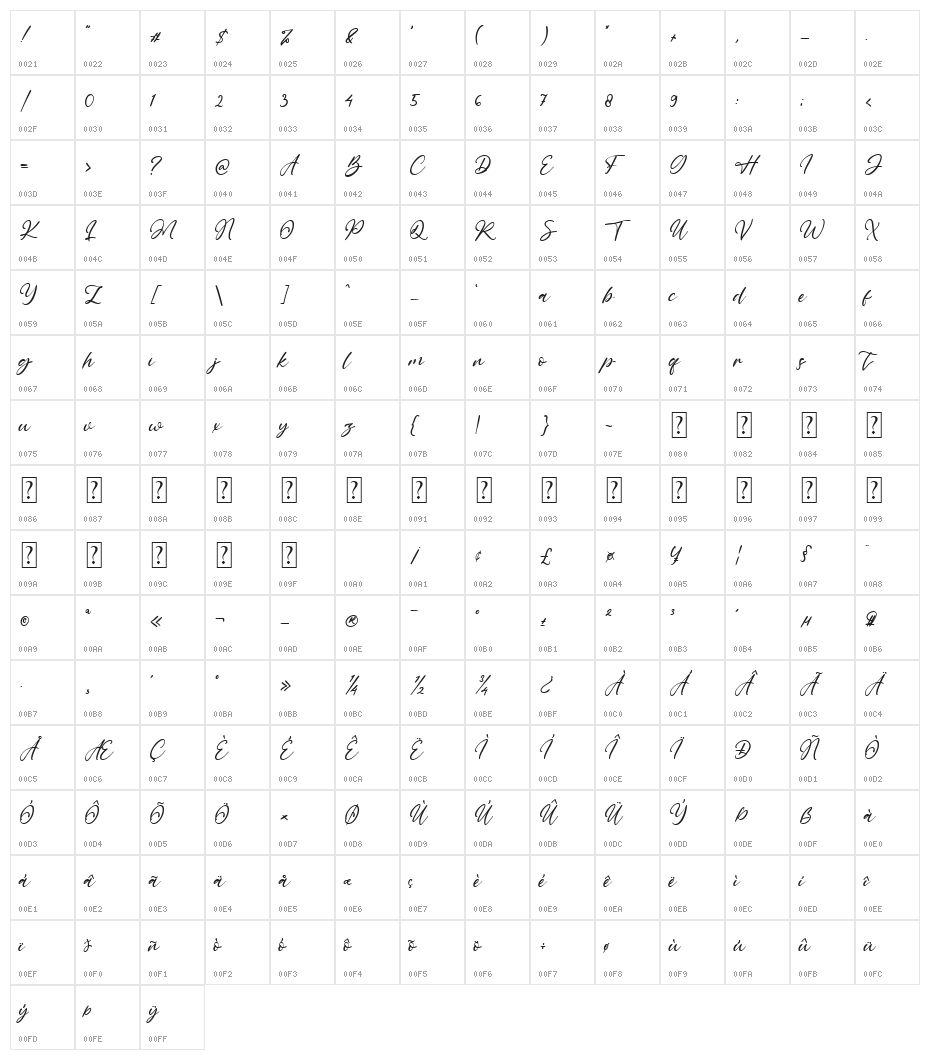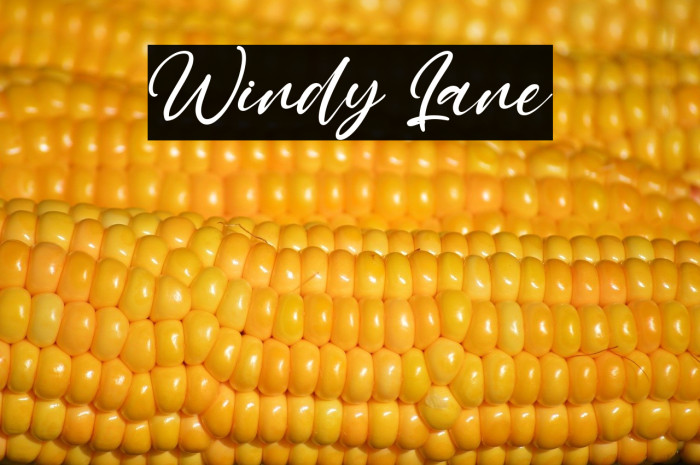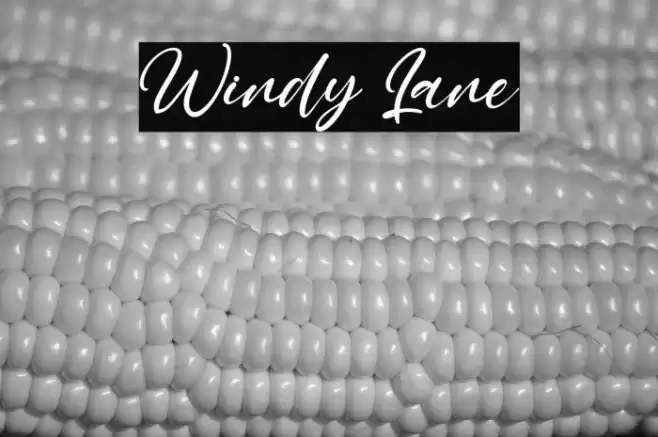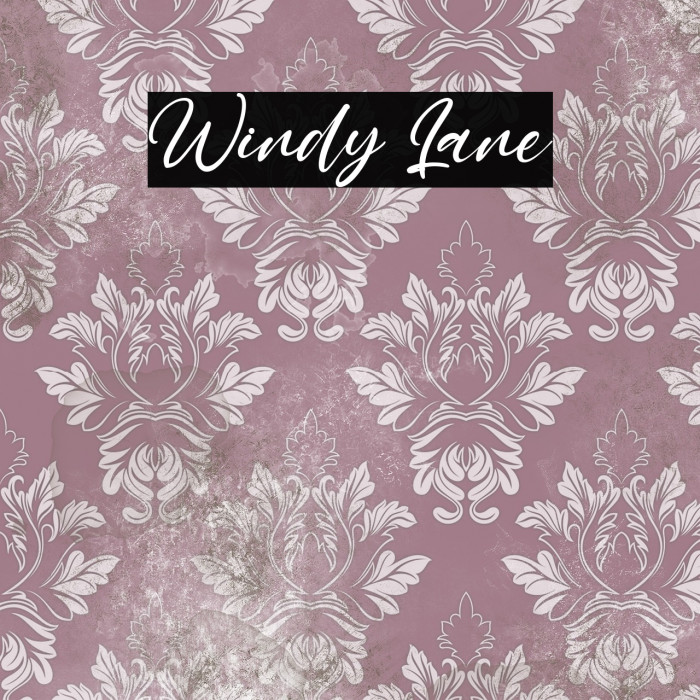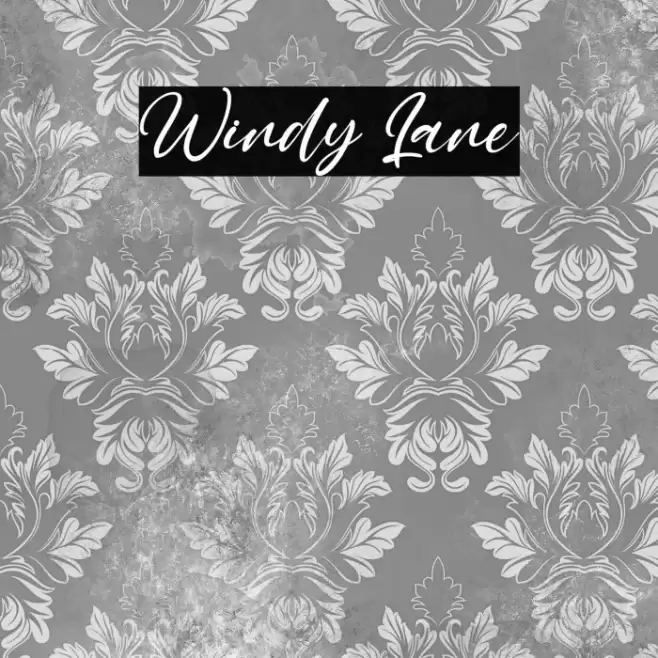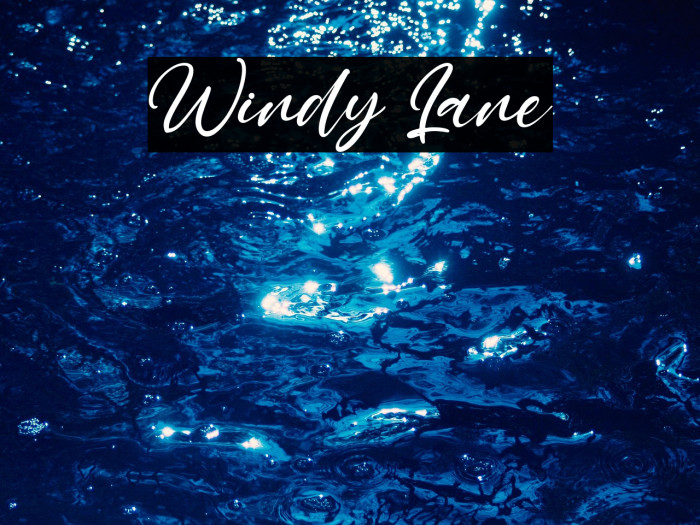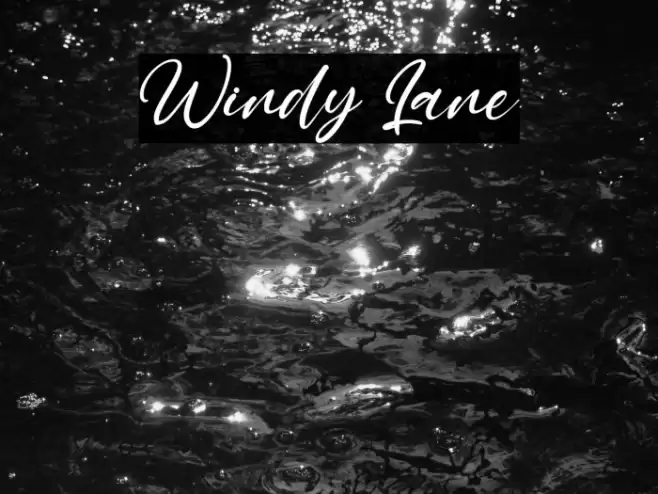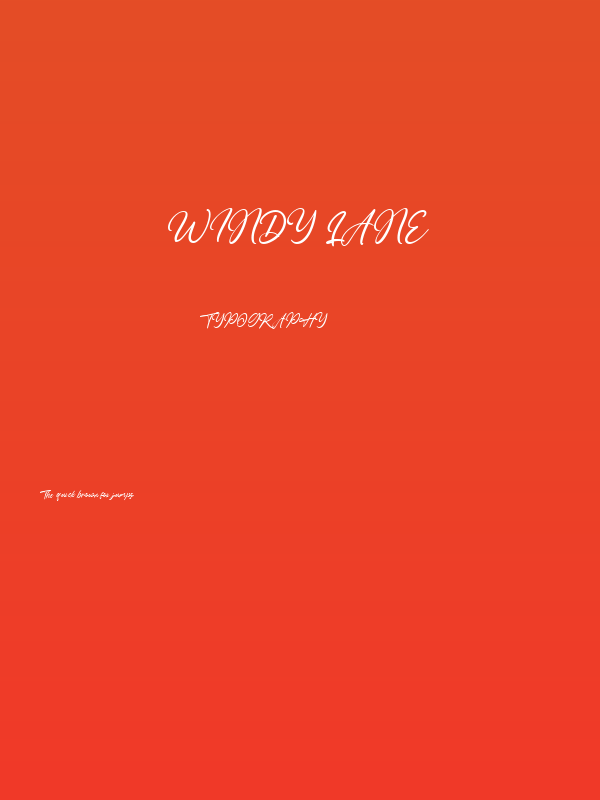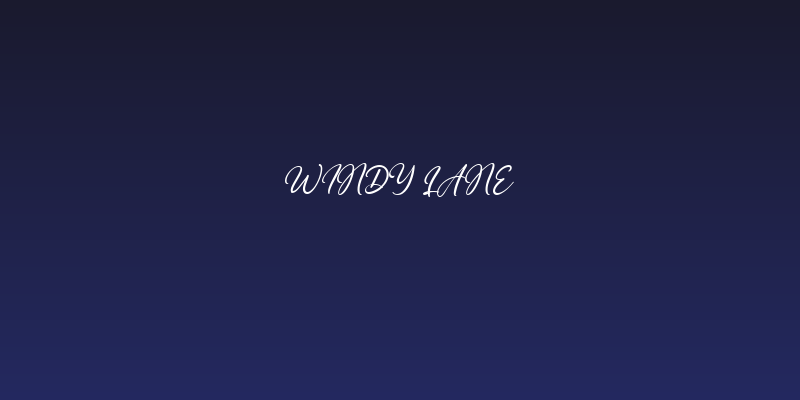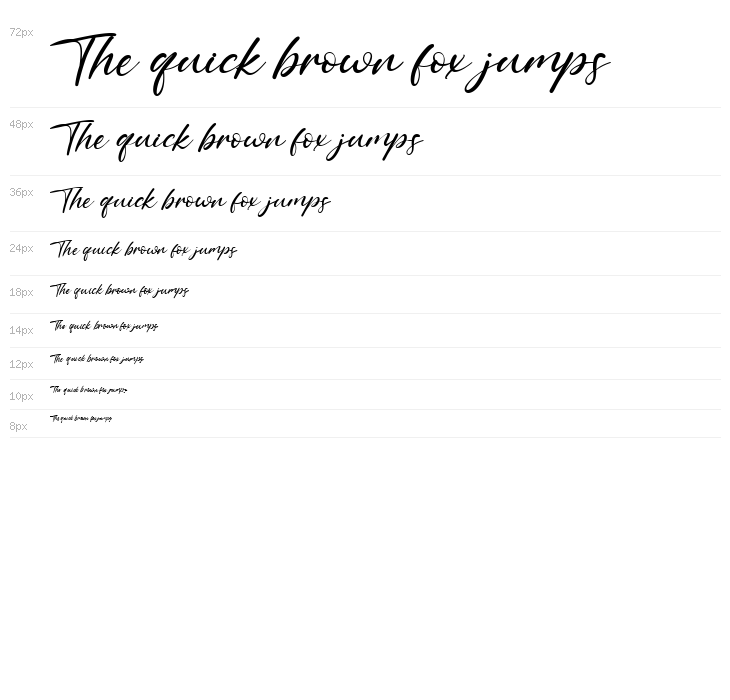
Windy Lane Font
Windy Lane Description
This elegant script font features fluid, cursive strokes that mimic the natural flow of handwriting. The characters are interconnected, creating a seamless and sophisticated appearance. The uppercase letters are ornate, with sweeping lines and flourishes, while the lowercase letters maintain a consistent rhythm and balance. The numerals and special characters are designed to complement the overall style, ensuring a cohesive look across all text elements. This font exudes a sense of grace and refinement, making it ideal for projects that require a touch of elegance.
| Proposed Projects | Ideal for wedding invitations, elegant branding, personal stationery, and romantic quotes. |